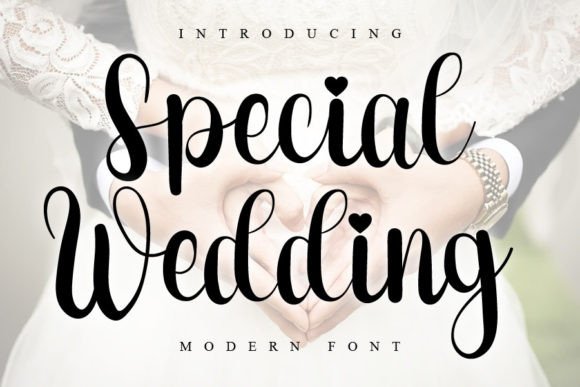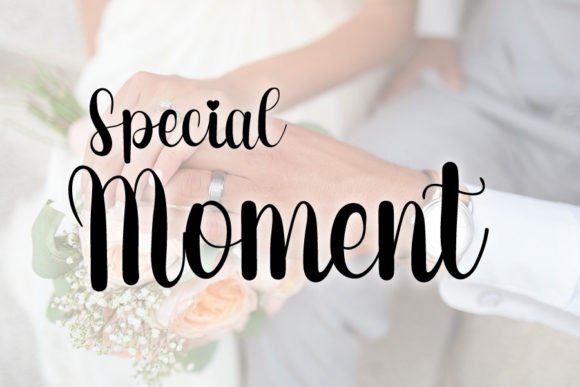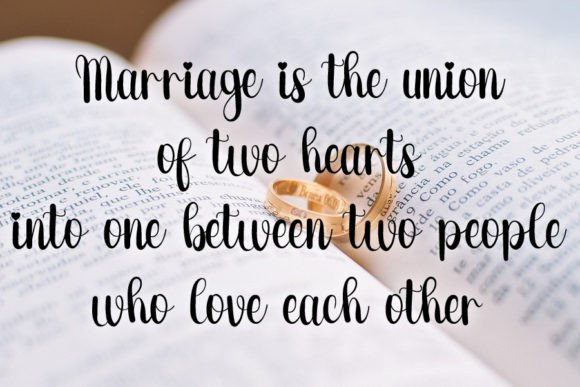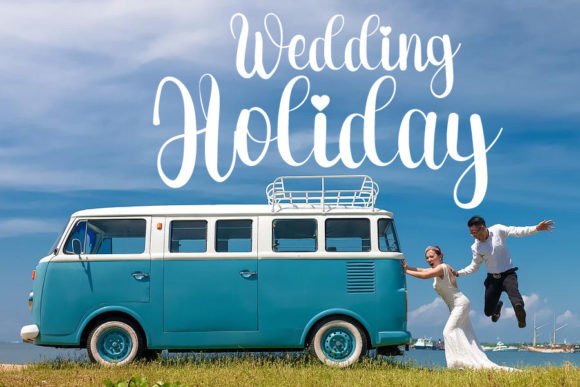
Special Wedding Font
About the Special Wedding Font
Make a bold statement with Special Wedding Font, a powerful and memorable font. Special Wedding is a fresh and beautiful handwritten font, good for your design purposes such as Youtube banners, Cover Logo Mockups, Wedding Invitations, Id Cards, Flayer, and Crafts. By using this font, your business will progress and develop. Apart from that, this font is simple and unique.
Special Wedding Font Usage Examples
Special Wedding Font Example